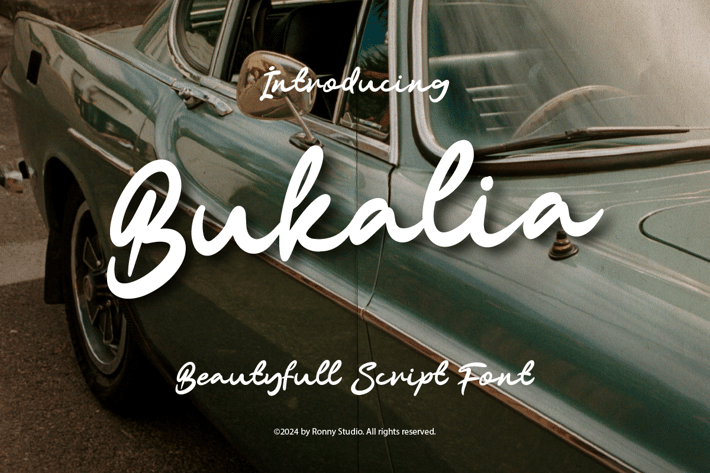
Bukalia - Beautyfull Script Font
Bukalia Font is created with a natural modern script with a fresh modern script that provides a Beautiful stylish script that is guaranteed to add interesting appeal to your designs. This font is perfect for your logo, brand image, quotes, product packaging, movie titles & social media posts.
- Uppercase & Lowercase
- numbers & punctuation
- Alternate & Ligature
- Multilingual